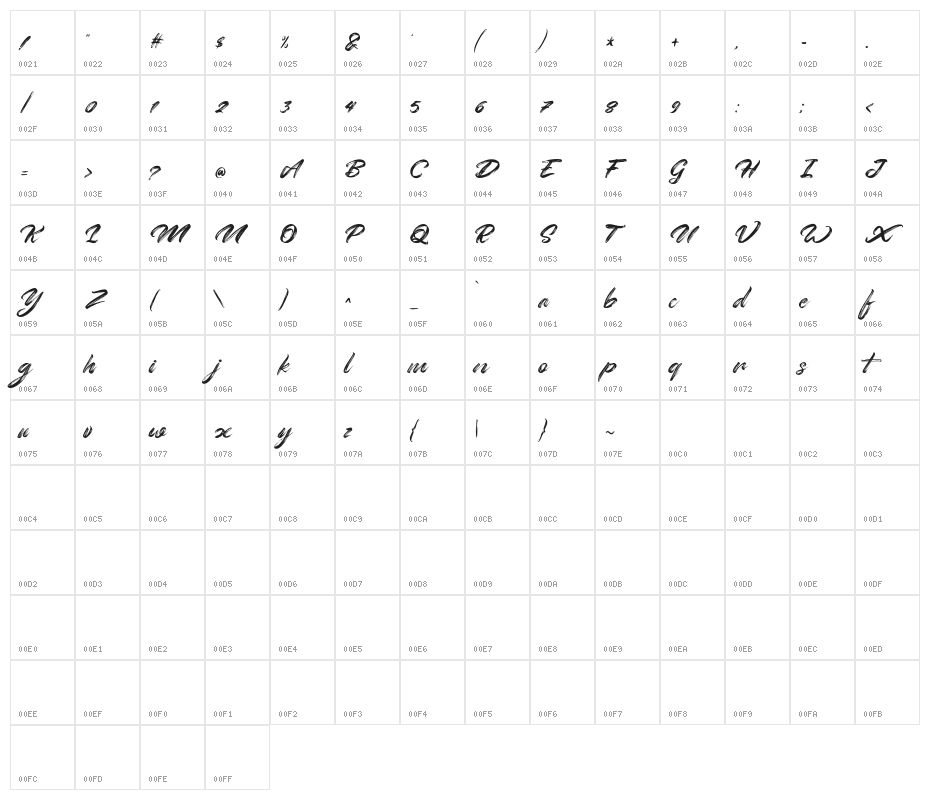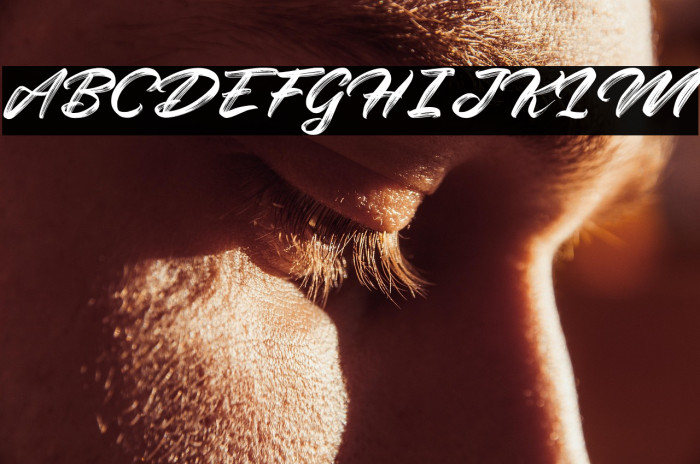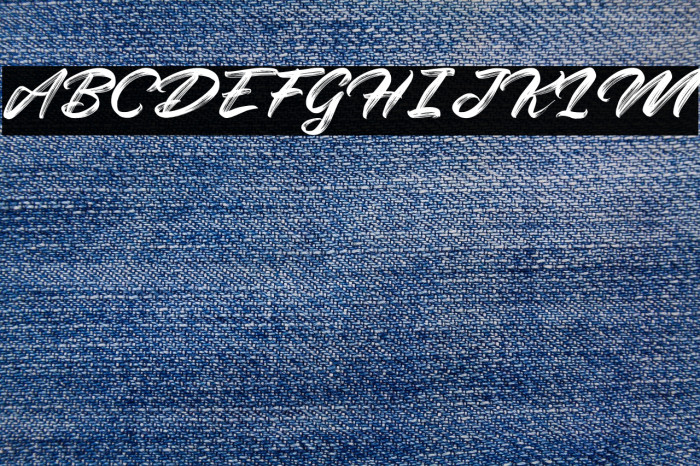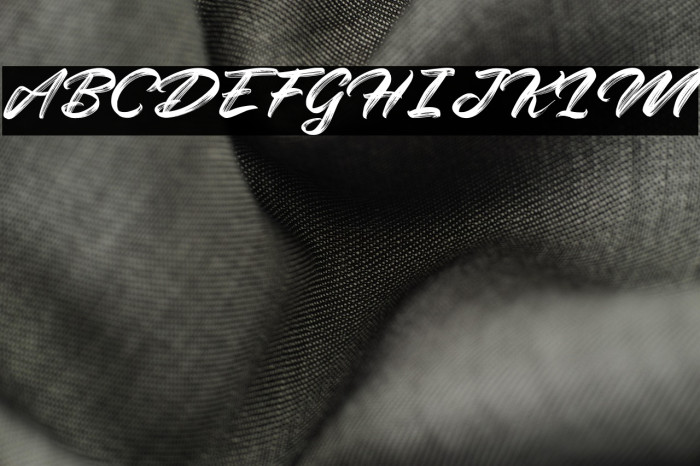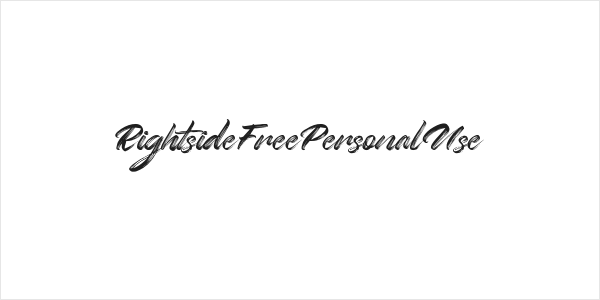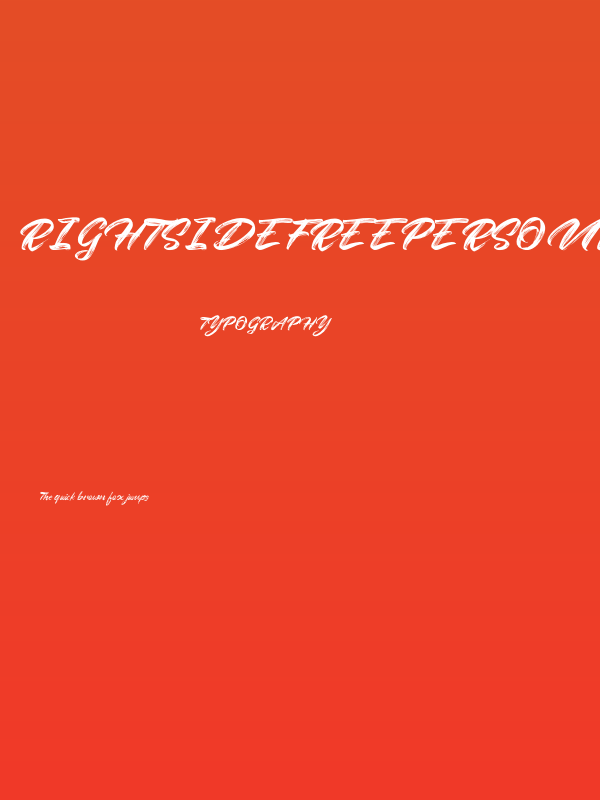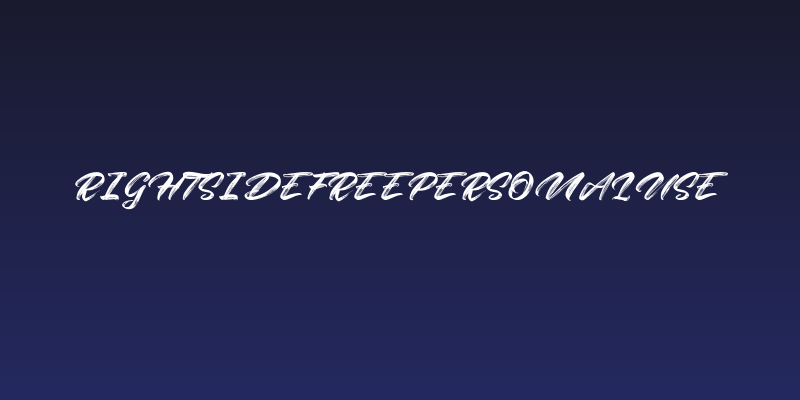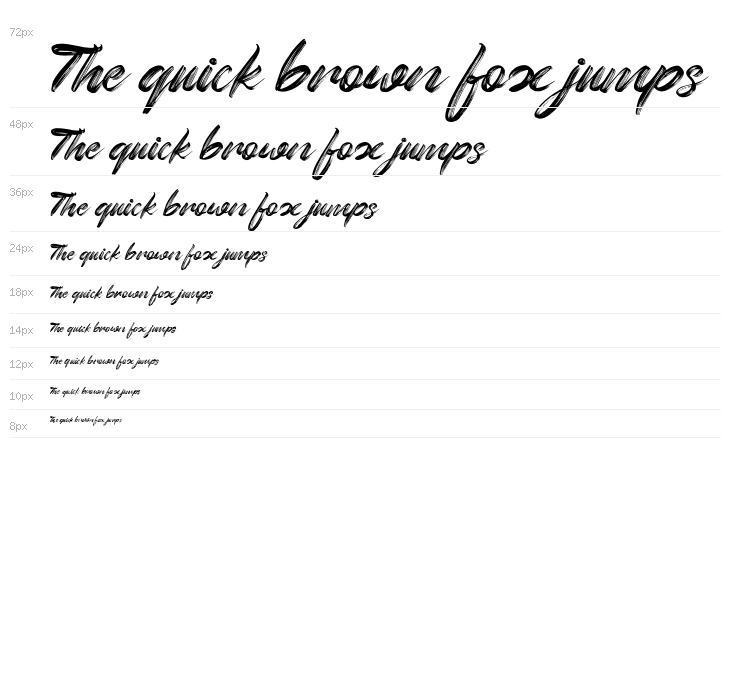
RightsideFreePersonalUse Font
RightsideFreePersonalUse Description
This font exudes a dynamic and energetic style, characterized by its bold and expressive strokes. The letters are crafted with a brush-like texture, giving them a hand-painted appearance. Each character flows into the next with a natural, cursive flair, making it ideal for projects that require a personal touch. The uppercase letters are particularly striking, with a sense of movement and rhythm that captures attention. The lowercase letters maintain this fluidity, ensuring consistency throughout the text. Numbers and special characters are equally expressive, adding to the font's versatility.
| Proposed Projects | Ideal for branding, invitations, posters, and any design requiring a personal, artistic touch. |